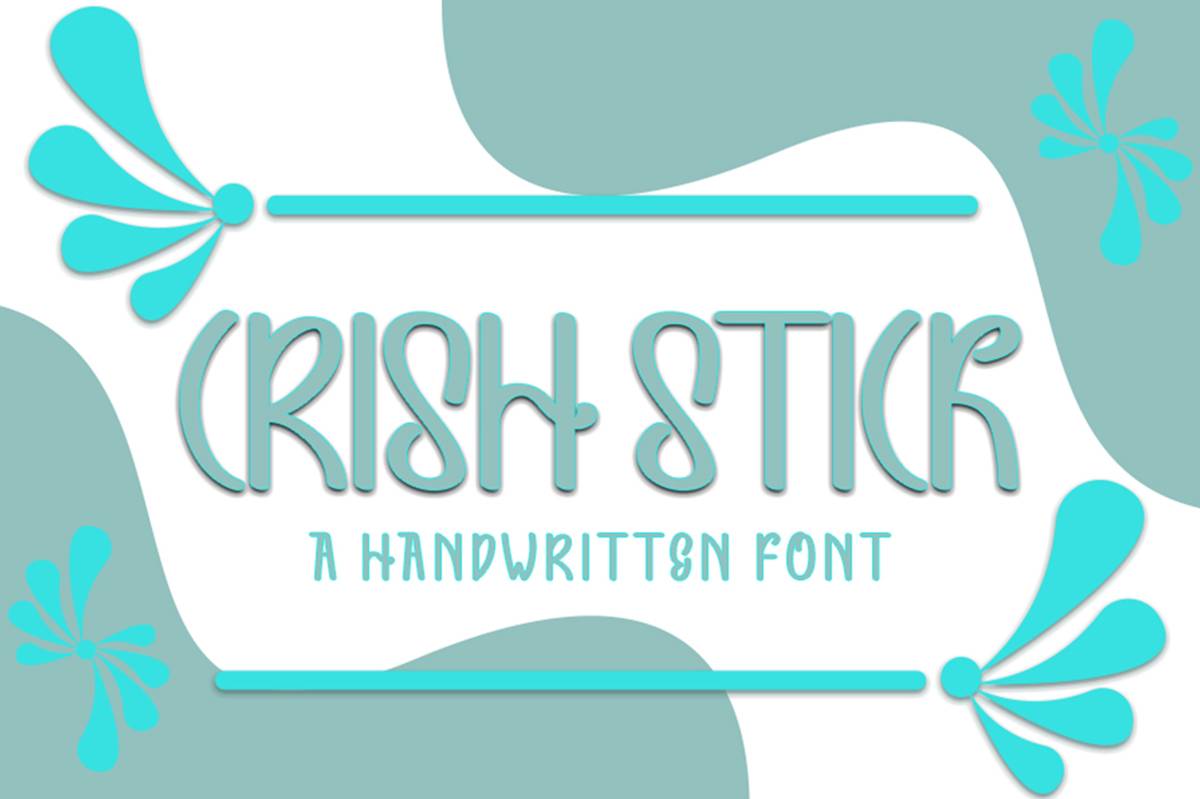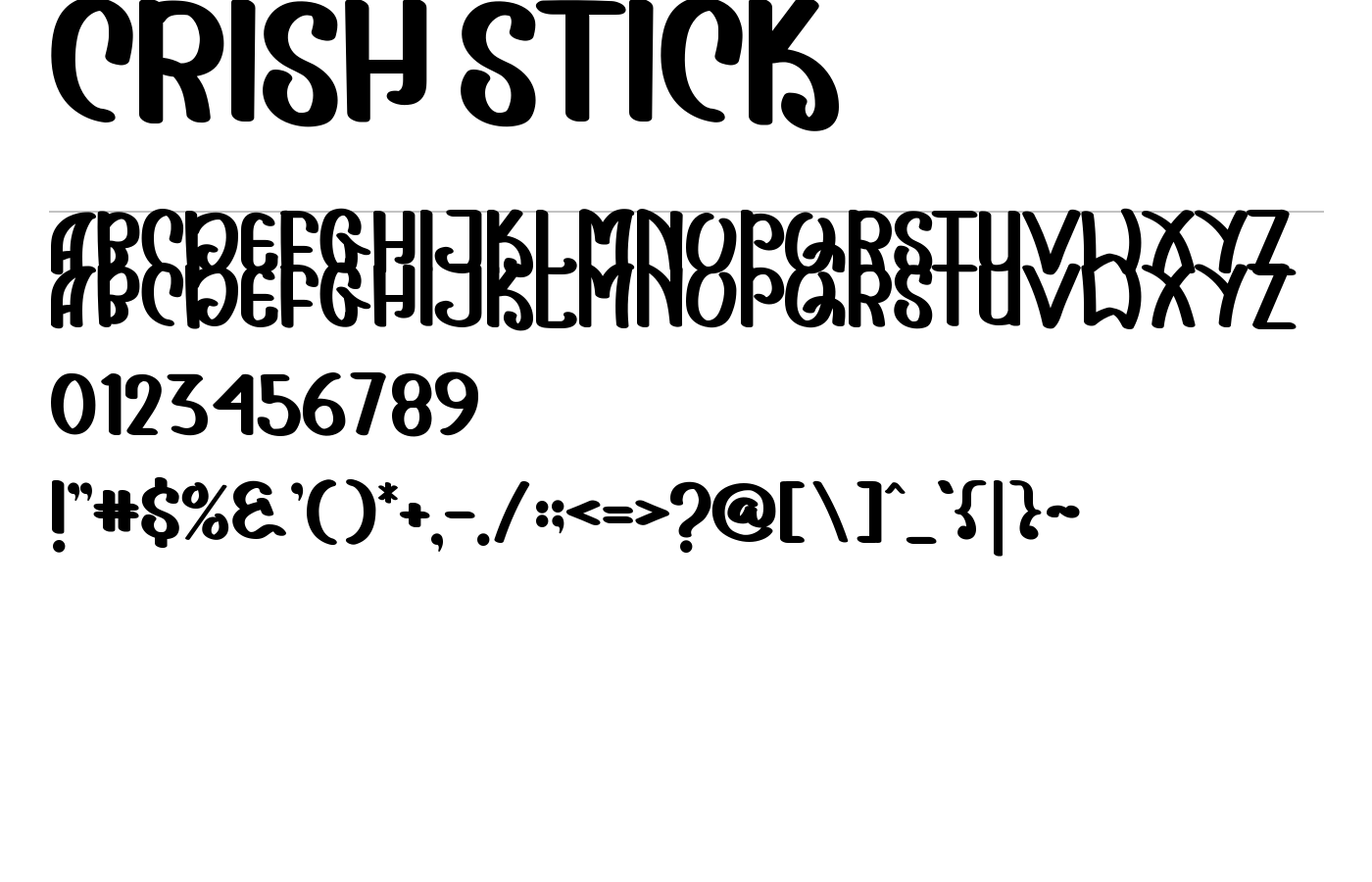
Crish Stick is a quirky, bold sans serif font with playful, rounded strokes and unique, hand-drawn letterforms that give it a fun and informal personality. Its high contrast and slightly condensed shapes make it stand out in headlines, branding, and creative projects seeking a lively, approachable vibe. This font works great for eye-catching logos, posters, and packaging that want to convey creativity and warmth.
Crish Stick Font
About Crish Stick Font